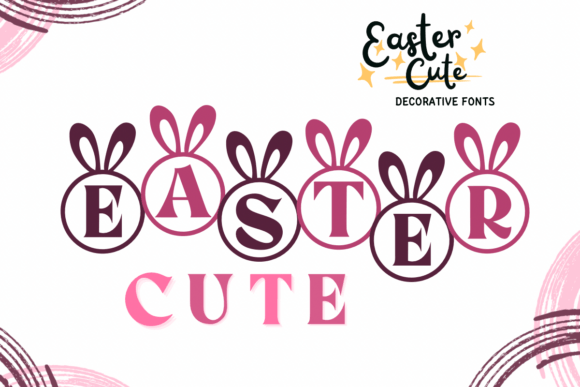
Spring into Creativity with the Easter Cute Font
There’s nothing quite like the feeling of rummaging through a stash of colorful pens and markers, searching for the perfect combination to bring your latest design to life. As the Easter season approaches, many of us are itching to get creative and whip up something special for our loved ones. If you’re anything like me, you’ve probably found yourself scrolling through font options, searching for the perfect match for your Easter-themed project.
That’s where the Easter Cute Font comes in – a delightful, decorative font that’s perfect for taking notes, writing a diary, or crafting greeting cards. But its uses don’t stop there! This charming font can also be used to create eye-catching banners, social media posts, and even merchandise like mugs and t-shirts. For designers, the Easter Cute Font is a valuable addition to their toolkit, offering a unique and playful touch that’s sure to set their designs apart.
- Unique Characteristics: Whimsical and playful design, perfect for Easter-themed projects, includes decorative elements and ornaments, ideal for digital and print media.
- Characters and Glyphs: Includes a wide range of characters, including uppercase and lowercase letters, numbers, punctuation, and special symbols, as well as Easter-themed icons and decorations.
Easter Cute Font Review
I recently had the chance to work with the Easter Cute Font, and I must say it’s a delight to use. ✨ Here are some of its strengths:
- Unique design: The Easter Cute Font has a distinctive, playful look that’s perfect for spring-themed designs.
- Highly customizable: You can easily adjust the font size, color, and style to fit your project’s needs.
- Great for children’s content: The font’s whimsical feel makes it an excellent choice for kids’ books, websites, or apps.
However, I also encountered some limitations: ⚠️
- Limited versatility: While the font is perfect for spring-themed projects, it may not be suitable for more serious or formal designs.
- Potential readability issues: The font’s playful design may make it difficult to read in certain contexts, especially at smaller font sizes.
Overall, the Easter Cute Font is a fun and creative choice for projects that need a lighthearted touch. While it may not be the best fit for every design, it’s definitely worth considering for spring-themed or children’s content projects.
Tips for Getting the Most Out of Easter Cute Font
Use the font’s unique characteristics to add a playful touch to your design.
Pair the font with bold colors and fun graphics to create a festive atmosphere.
Easter Cute Font is perfect for Easter-themed designs, such as invitations, posters, and social media graphics.
Use the font to create a playful and festive atmosphere for Easter celebrations.
The font’s whimsical feel also makes it suitable for spring-themed designs and kids’ party invitations.
Great Vibes is a playful, cursive font that is reminiscent of Easter Cute Font. However, it has a more relaxed and casual feel, making it suitable for social media posts, greeting cards, and other lighthearted designs. While Easter Cute Font is more focused on Easter-themed designs, Great Vibes can be used for a broader range of topics.
Comparison to Easter Cute Font: Great Vibes has a more fluid and natural look, whereas Easter Cute Font is more stylized and cartoonish.
Cupid
Cupid is a romantic, cursive font that is perfect for Valentine’s Day and other love-themed designs. While it shares some similarities with Easter Cute Font, it has a more elegant and sophisticated feel. Cupid is ideal for wedding invitations, love letters, and other romantic designs.